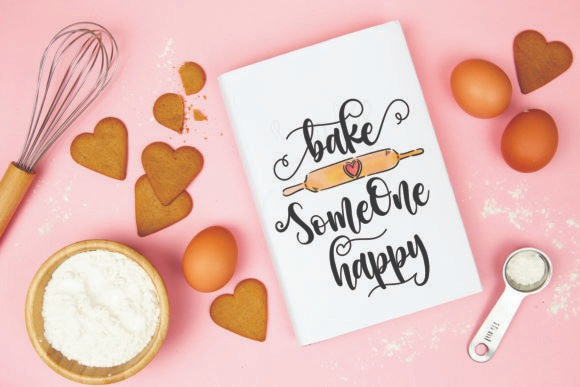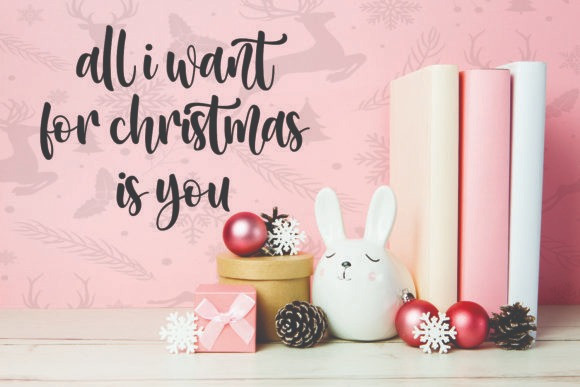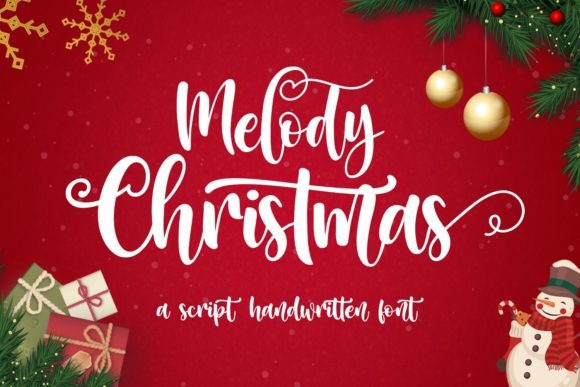
Melody Christmas Script Font
Melody Christmas is a modern and flowing handwritten font. It is PUA encoded which means you can access all of the glyphs and swashes with ease! Every letter has a unique and beautiful touch, which will make your design come alive!